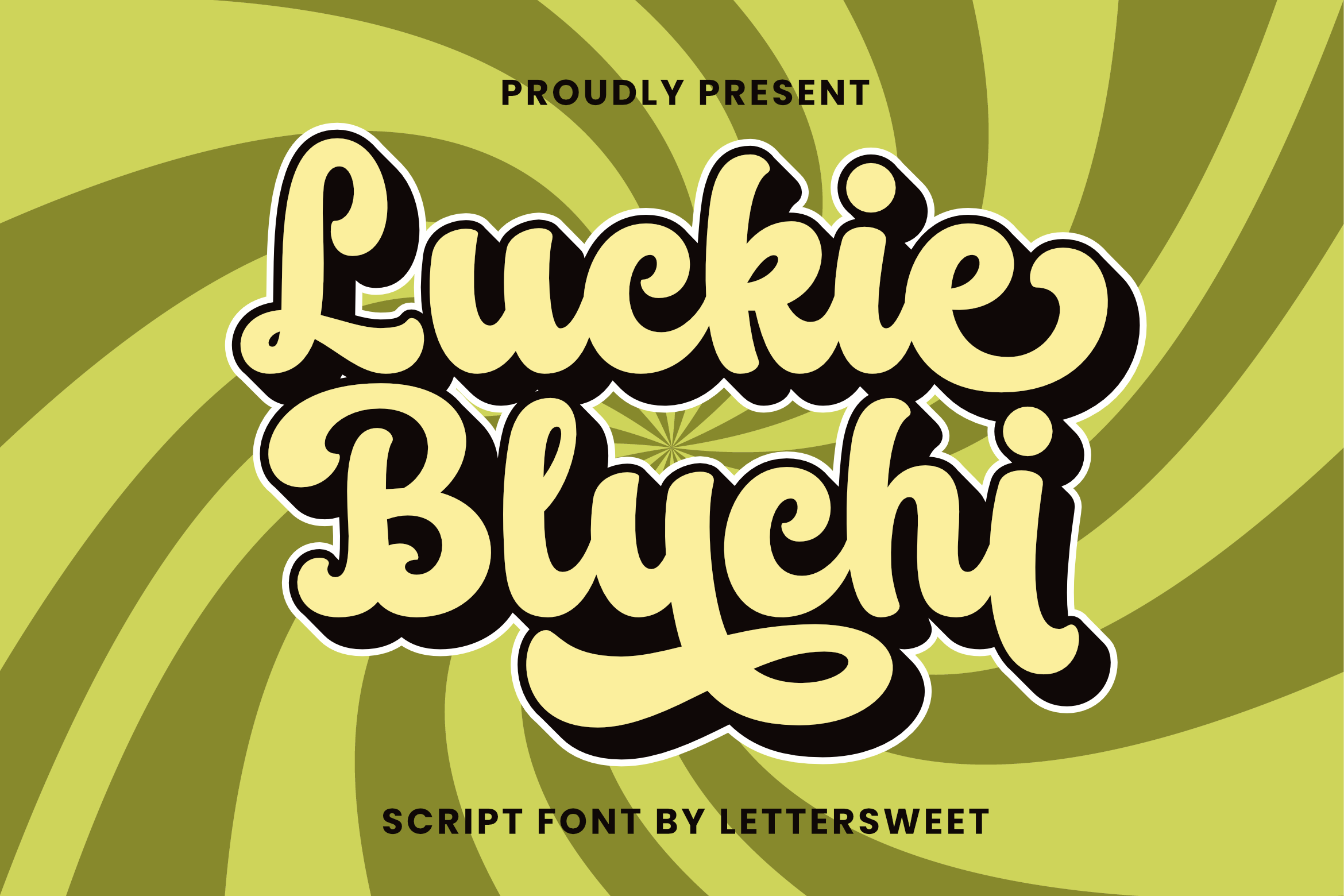
Luckie Bluchi - Vintage And Bold Handwritten Font
About Luckie Bluchi - Vintage And Bold Handwritten
Luckie Bluchi is a vintage and bold handwritten font with extrude style. Fall for its ravishing style and use it to create gorgeous designs. It has beautiful and well-balanced characters and as a result. This font is PUA encoded, which means you can easily access all glyphs and swashes!